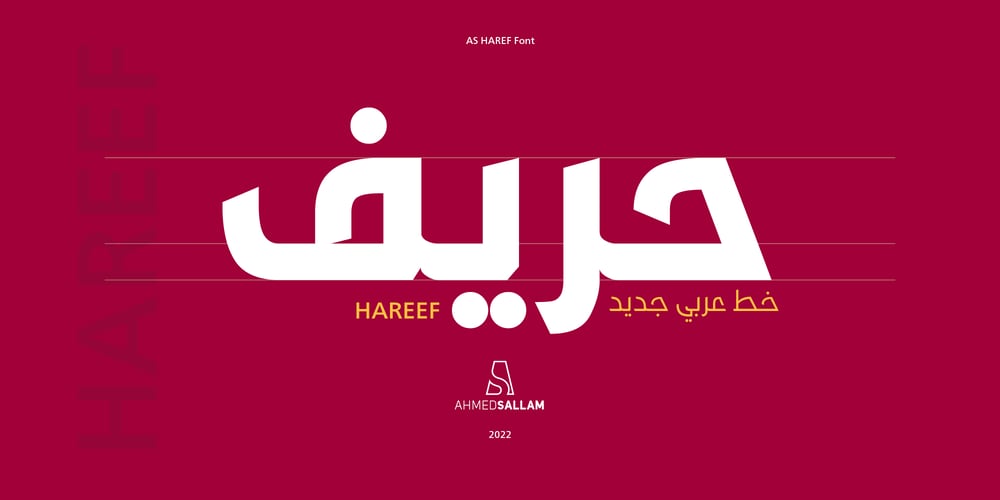
AS Haref Font Family was designed by Ahmed Sallam and published by Sallam Type. AS Haref contains 8 styles and family package options. AS HAREF is a contemporary geometric Arabic font, drawn and constructed carefully Font design is inspired by the ARABIC calligraphic style.AS HAREF Its structure is equal and visually controlled. Character forms are a combination of vertical straight lines that integrate visually with soft angles in some areas. This makes it a line of nature suitable for today’s technological and visual development. The variations and weights of this font are suitable to use companies in their names and appearance, and also suitable with the titles and logos and is also used in all the requirements of advertising and long texts, use in headlines, logotypes, branding, books, magazines, motion graphics, web and Tv.AS HAREF consists of 7-weight versions from Thin to Heavy.